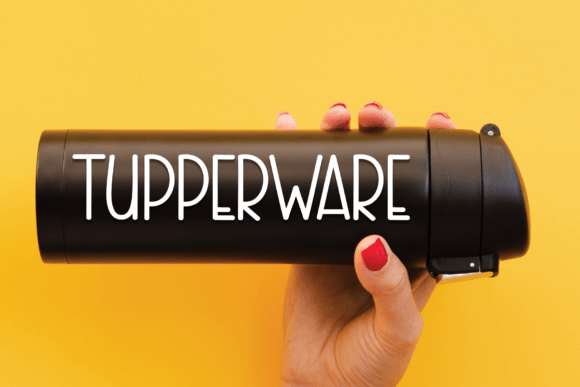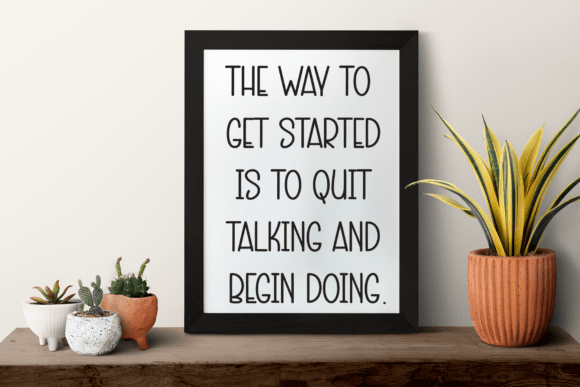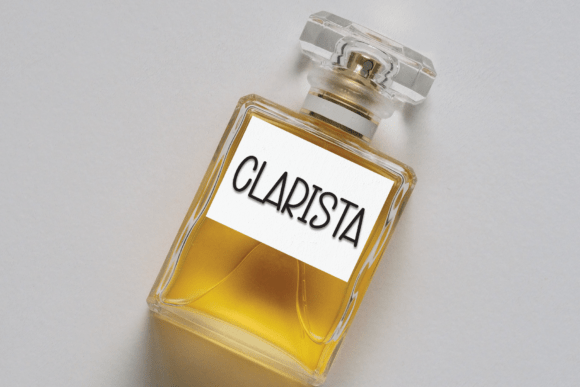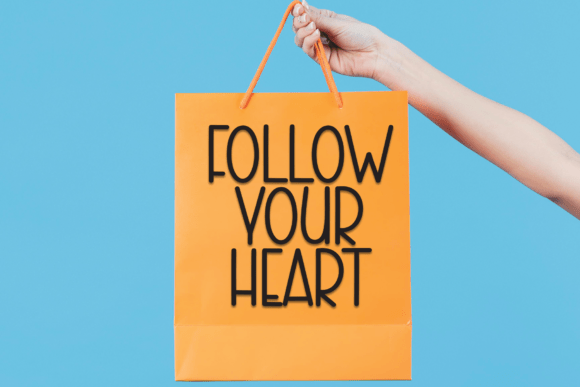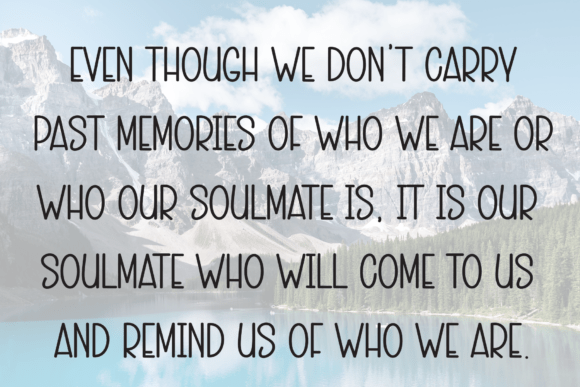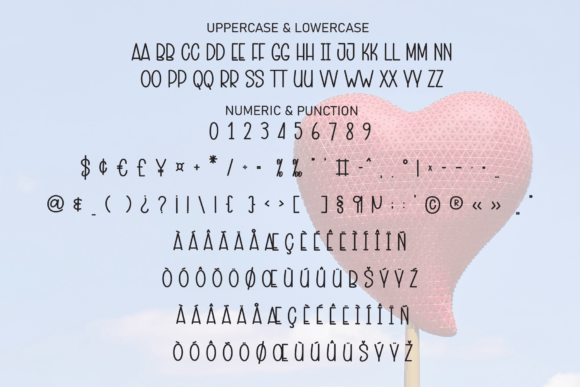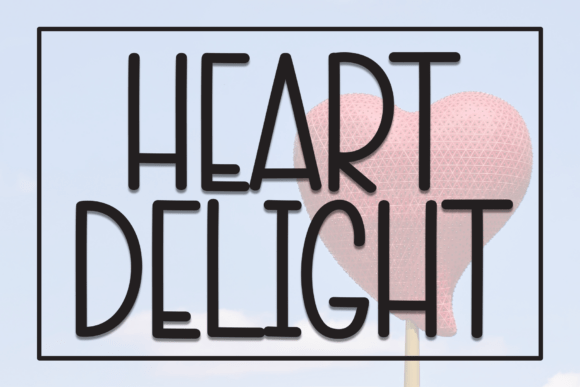
Heart Delight Font: Adding a Touch of Whimsy to Your Designs
Are you looking for a font that can infuse warmth and charm into your designs? Look no further than the Heart Delight Font, a delightful and affectionate handwritten display font that’s sure to captivate your audience. With its playful and whimsical flair, this font is perfect for adding a touch of personality to wedding invitations, heartfelt cards, and any creative project that requires a dose of joy and lightheartedness.
The Embodiment of Joyous Expression
The Heart Delight Font is more than just a font – it’s an expression of joy and whimsy. Its sweet and friendly demeanor makes it perfect for designers and crafters who want to convey their messages with a personal touch. Whether you’re creating wedding invitations, greeting cards, or social media graphics, this font is sure to bring a smile to your audience’s faces.
Perfect for Wedding Invitations and Heartfelt Cards
Wedding invitations and heartfelt cards require a special touch, and the Heart Delight Font delivers. Its playful and whimsical flair adds a romantic and personal touch to your designs, making them truly unforgettable. Imagine creating beautiful wedding invitations that set the tone for a joyous and celebratory occasion, or crafting heartfelt cards that express your love and appreciation for someone special.
Adding a Playful Flair to Your Designs
The Heart Delight Font is not just limited to wedding invitations and cards. Its versatility makes it perfect for adding a playful flair to any creative project. Whether you’re designing social media graphics, blog posts, or marketing materials, this font is sure to add a touch of personality and whimsy to your designs.
Key Features of the Heart Delight Font
- Delightful and affectionate handwritten display font
- Perfect for wedding invitations, heartfelt cards, and creative projects
- Infuses warmth and charm into your designs
- Sweet and friendly demeanor
- Playful and whimsical flair
Why Choose the Heart Delight Font?
With so many fonts to choose from, why choose the Heart Delight Font? Here are just a few reasons:
- Unique and eye-catching: The Heart Delight Font is a one-of-a-kind font that’s sure to grab attention and leave a lasting impression.
- Versatile: The Heart Delight Font can be used for a wide range of projects, from wedding invitations to social media graphics.
- High-quality: This font is designed with high-quality and clarity in mind, ensuring that your designs look professional and polished.
Tips for Using the Heart Delight Font
Here are a few tips for getting the most out of the Heart Delight Font:
- Pair with complementary fonts: Pair the Heart Delight Font with complementary fonts to create a unique and visually appealing design.
- Experiment with colors: Don’t be afraid to experiment with different colors and textures to add depth and interest to your designs.
- Use it sparingly: Use the Heart Delight Font sparingly to add a touch of whimsy and personality to your designs.
The Heart Delight Font is a delightful and affectionate handwritten display font that’s sure to captivate your audience. With its playful and whimsical flair, this font is perfect for adding a touch of personality to wedding invitations, heartfelt cards, and any creative project that requires a dose of joy and lightheartedness. Whether you’re a designer or crafter, this font is sure to bring a smile to your face and inspire your creativity.